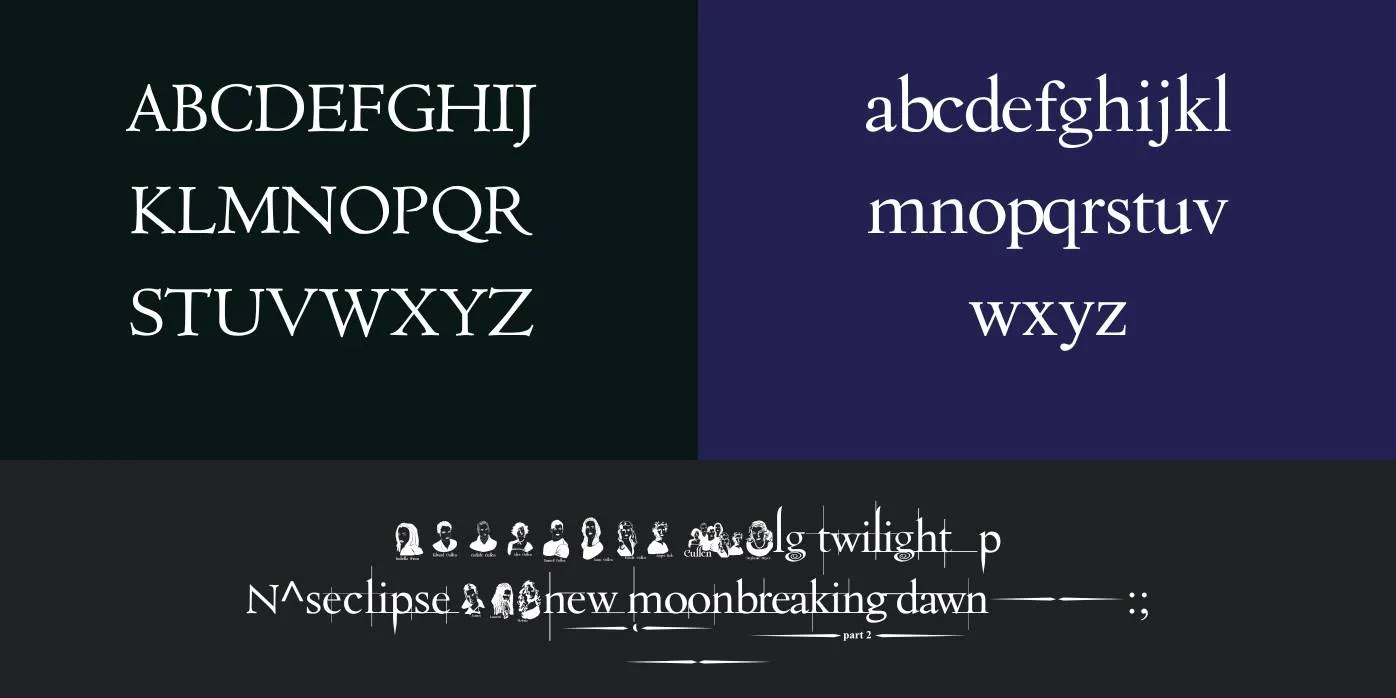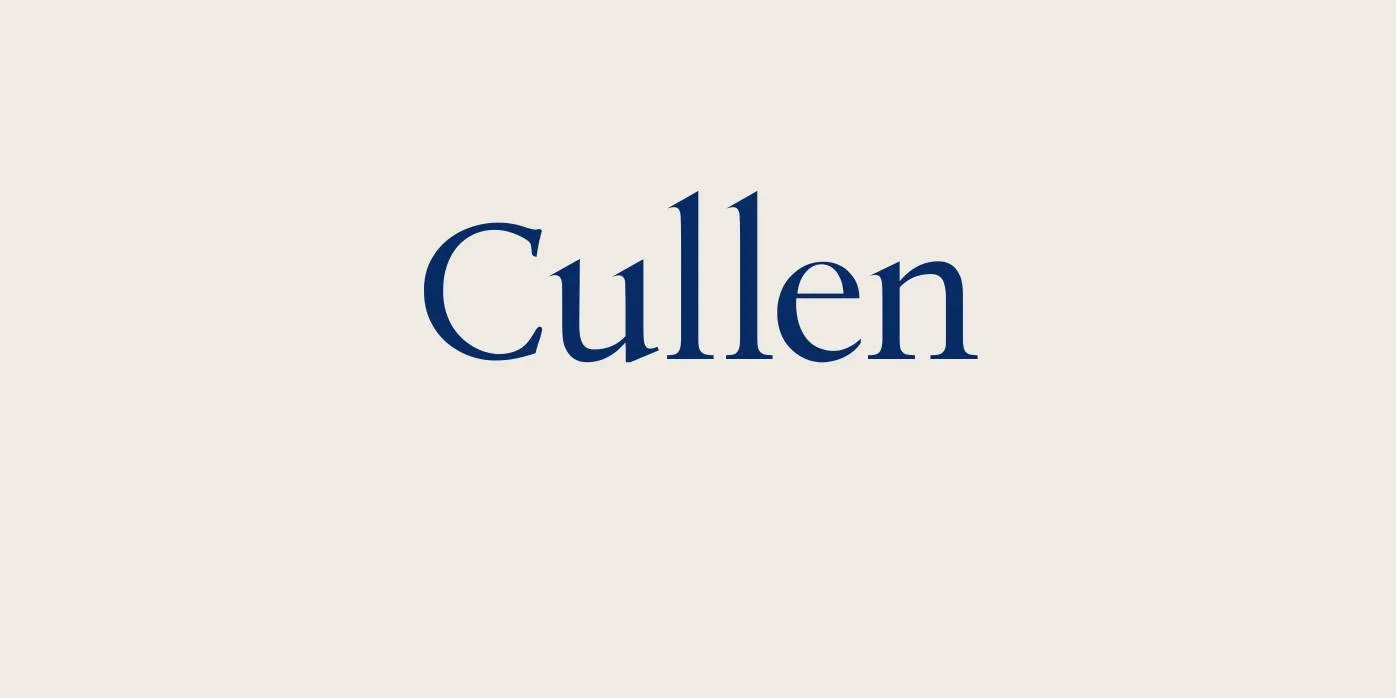
Cullen Font
Alphabet&Type® is the designer for this amazing type of font. Cullen Font is a dingbat type of font that has some stunning and unique features. The characters of this typeface are awesome. Because they contain pretty photos.